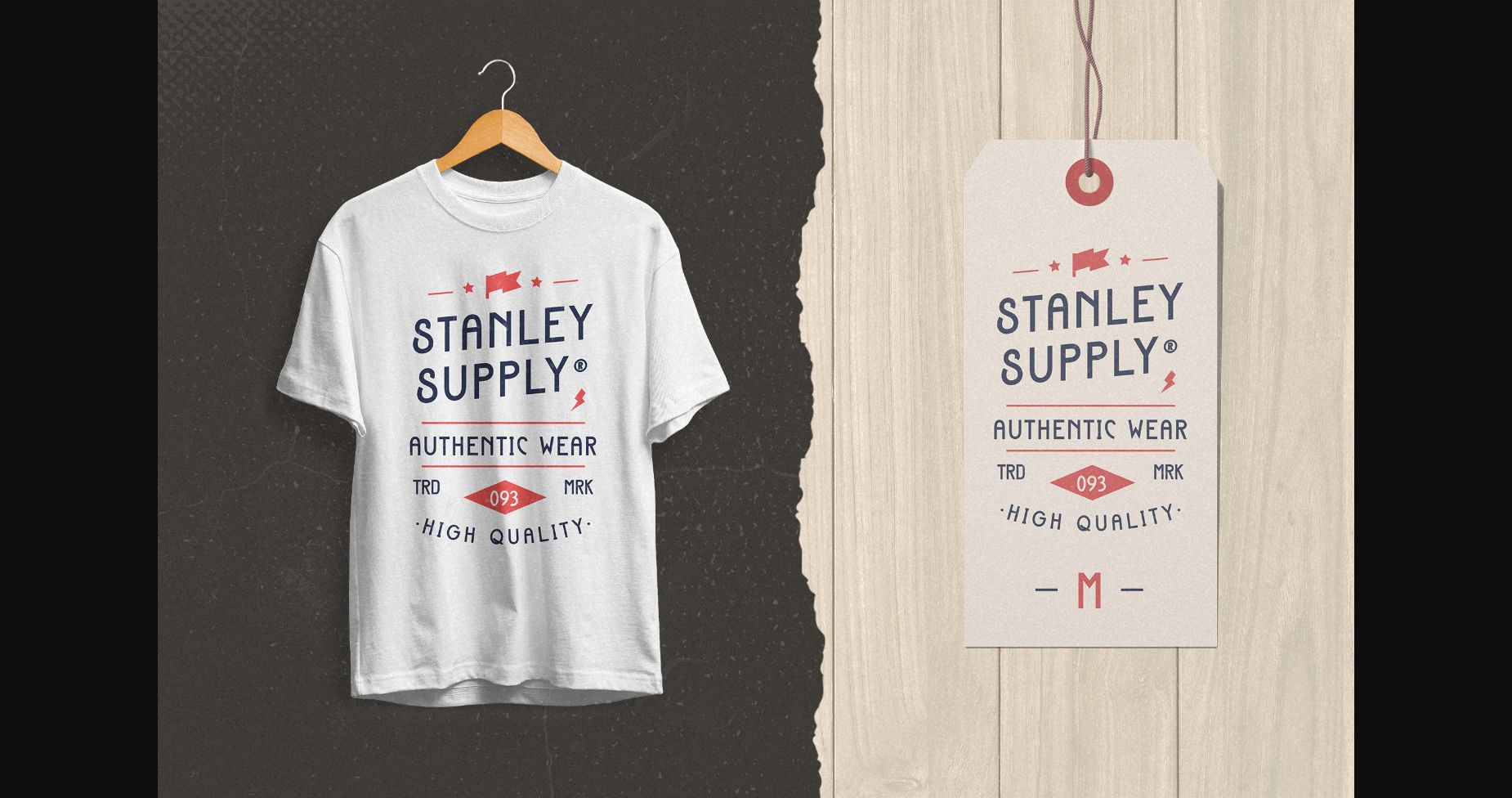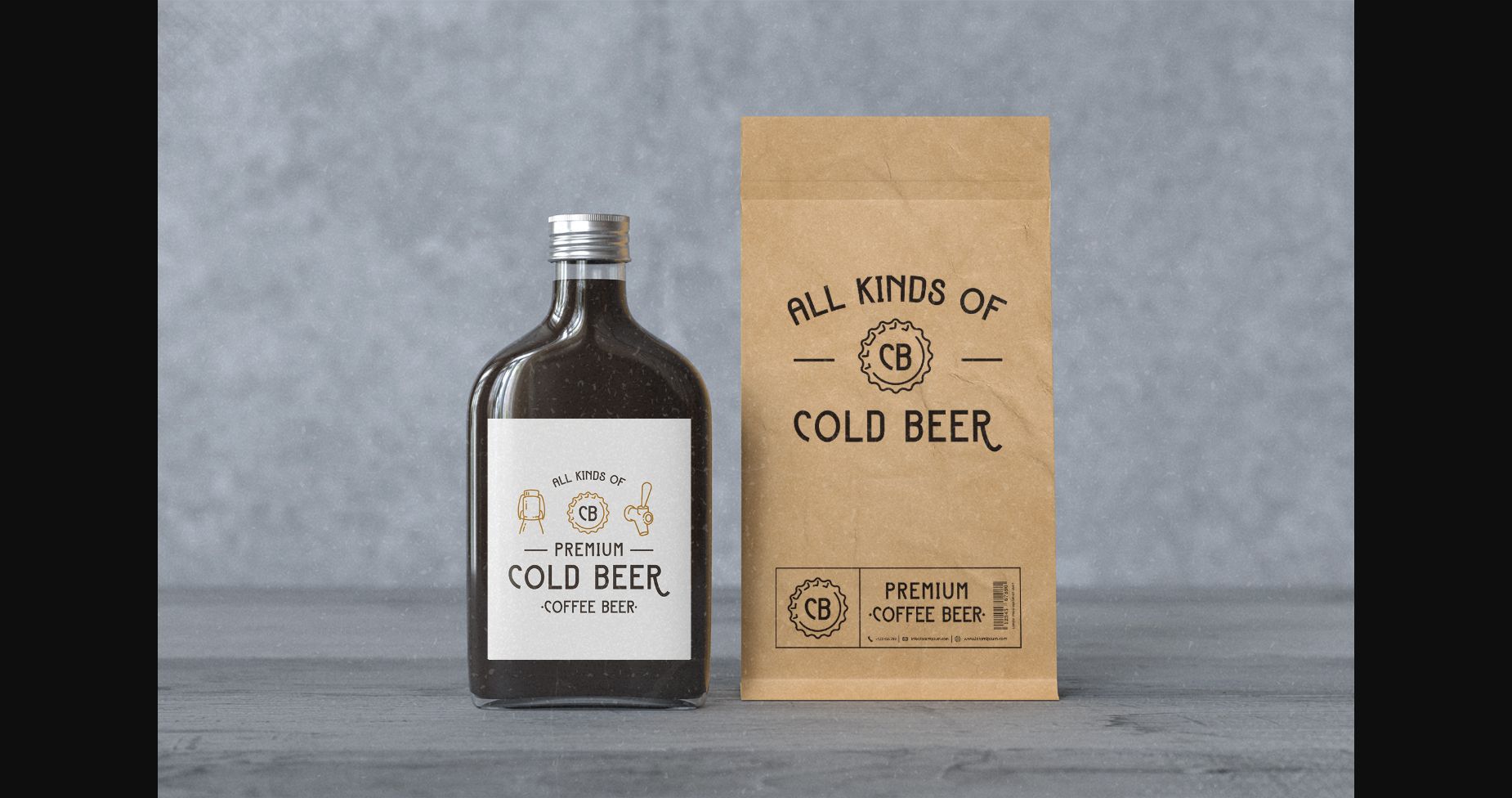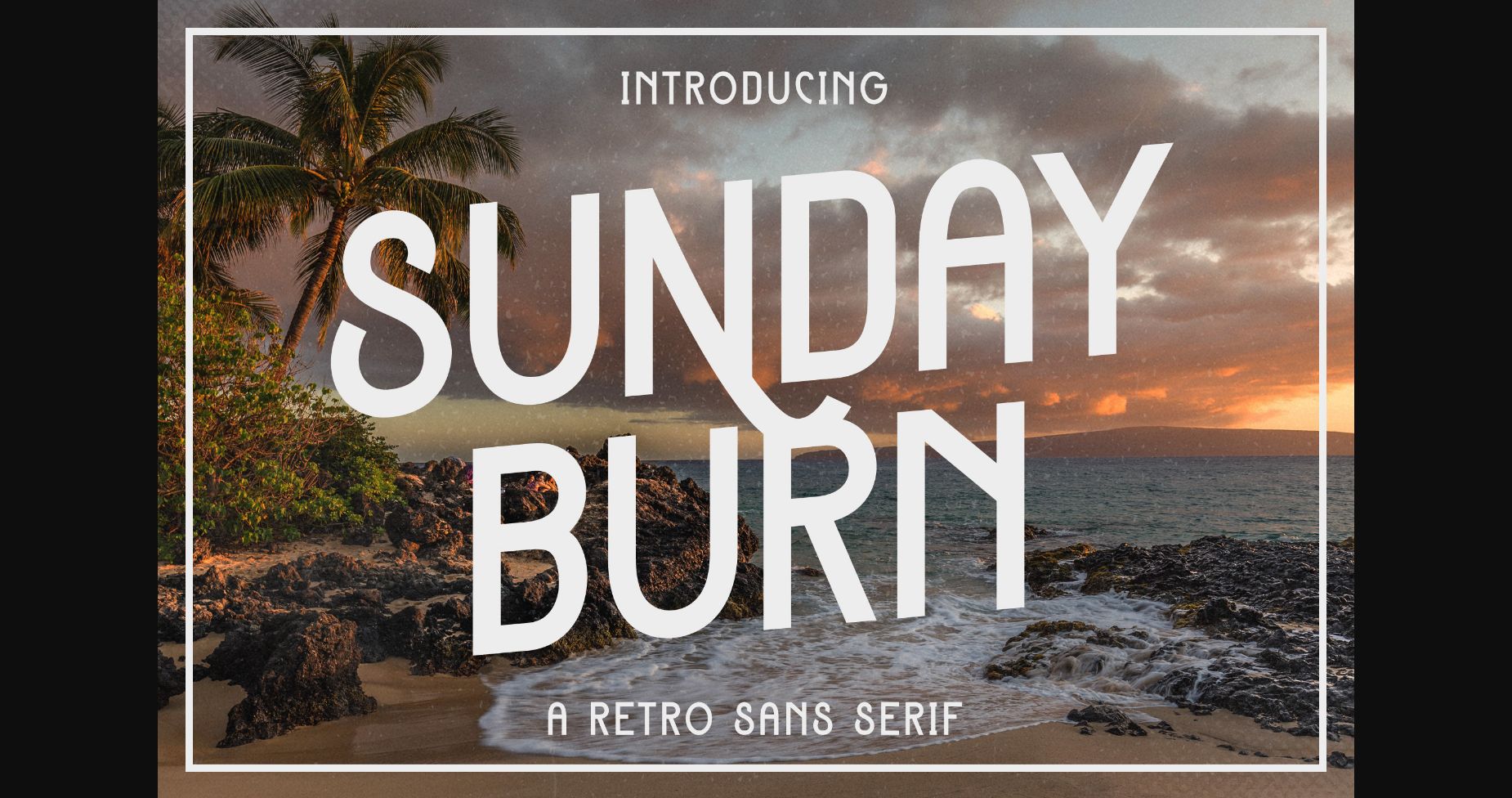
About Sunday Burn Font
Sunday Burn is a cool, tall and retro styled sans serif font. It will enhance the quality of each of your posters, flyers, or print. Add it confidently to your favorite creations and let yourself be amazed by the outcome generated.